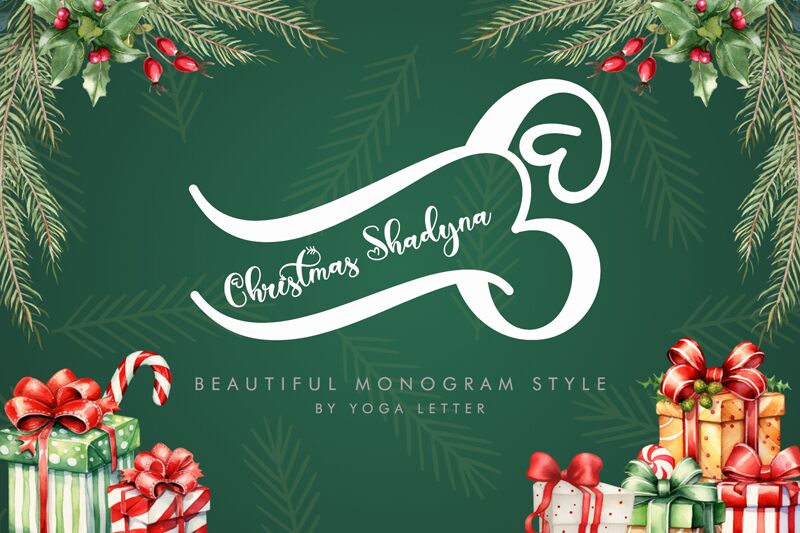
Christmas Shadyna font family by Yoga Letter comes with 2 font styles. The free font family brings together all the holiday elements you ever needed in one amazing package. Inspired by Christmas but perfect for other holidays, the shining letter set is both festive and elegant. Swirls, some of which are added to each character and others seen in the connecting lines, flow within each design.
This graceful appearance allows the handwritten Christmas Shadyna to be dashing, both in characters and in calls, whether they’re featured within logotypes and branding designs for beaches, restaurants, or stores. It can be used for personal projects that feature calls (call for invitation, action, etc.) like invitations and greeting cards or general projects like posters, ads, and branding designs.
So whether you’re preparing for summer holidays or getting your business a bit of a boost for Christmas, you can add these dashing designs with a few simple clicks, mixing and matching the characters of your choice to freely use Christmas Shadyna as is.